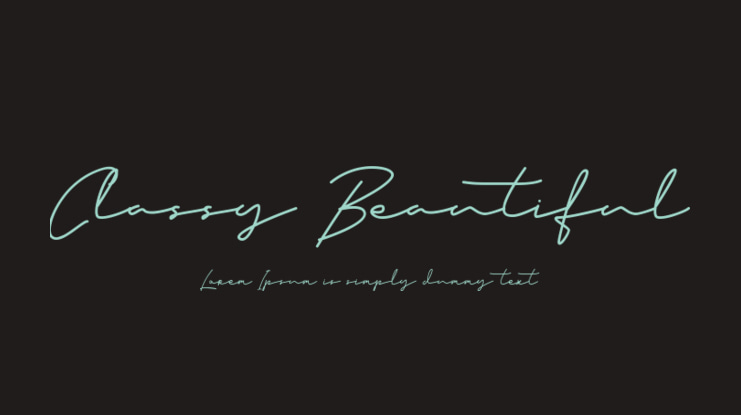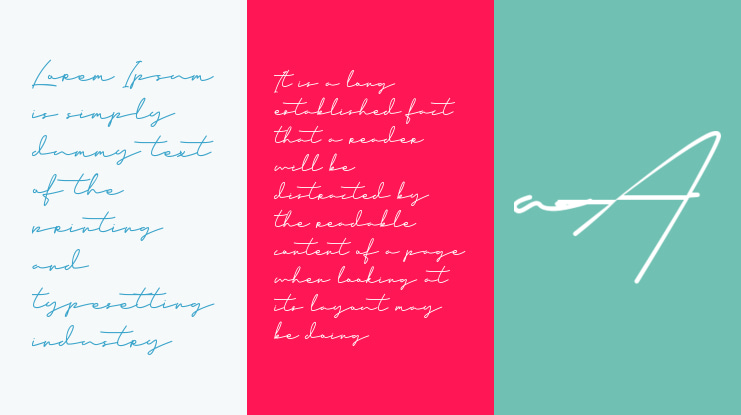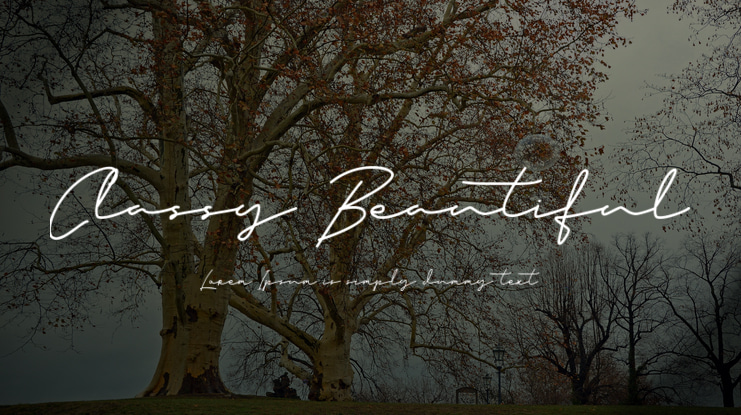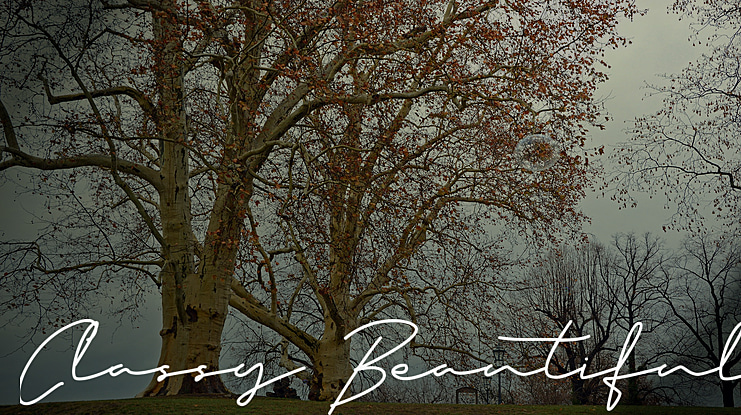
Classy Beautiful Font Family
Sigit Dwipa
Introducing the Classy Beauty Font Duo, a classy, contemporary pair of script and sans fonts.
beautiful typographic harmony for a diversity of design projects, including logos & branding, wedding designs, social media posts, advertisements & product designs.
1. Classy Beauty Sans
2. Classy Beauty Script